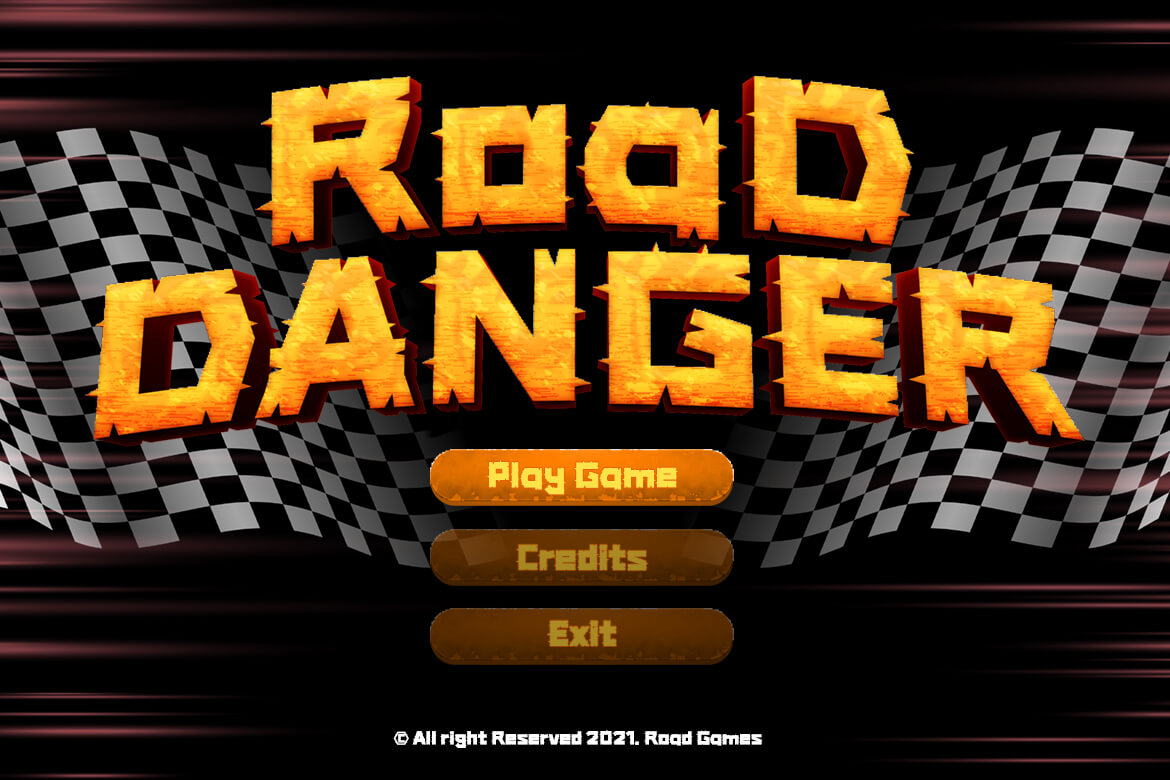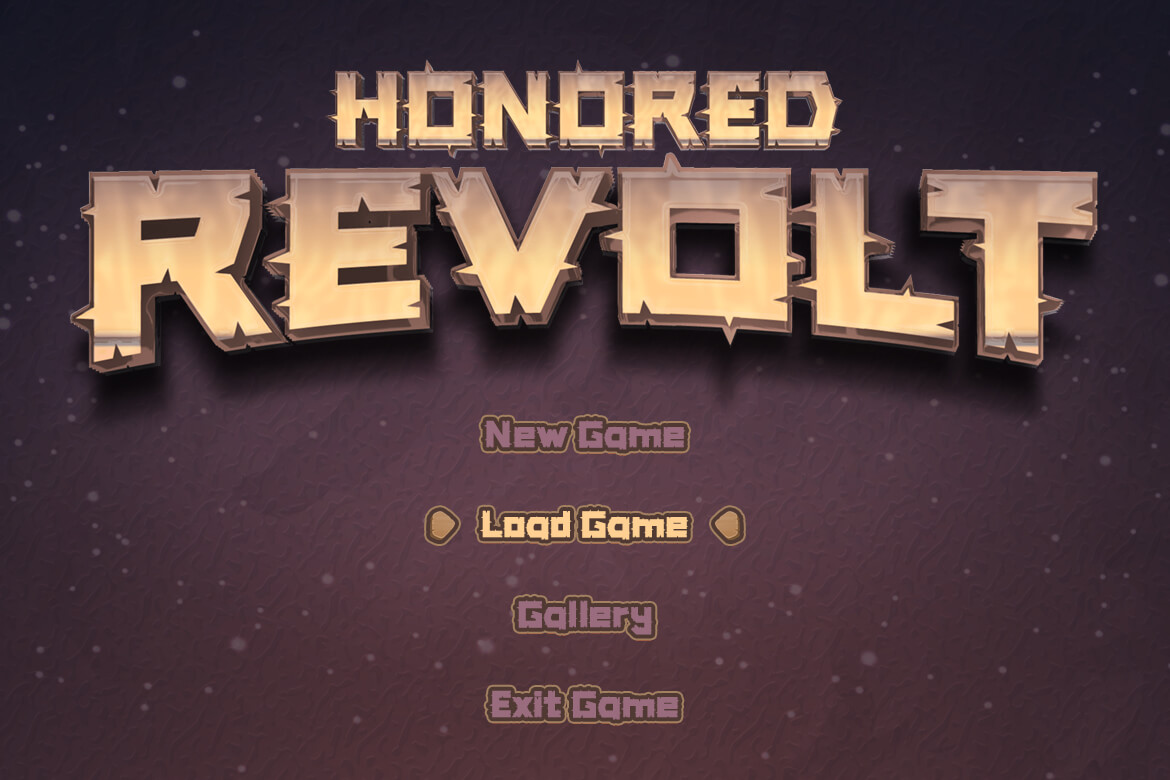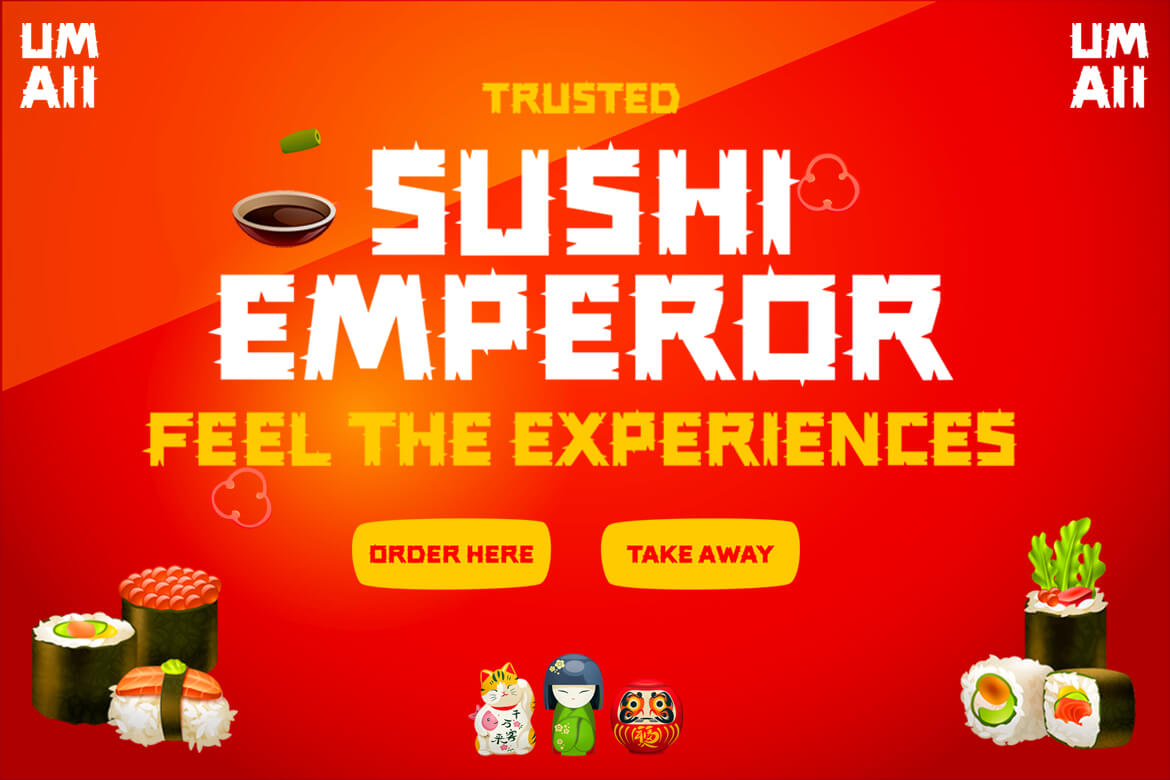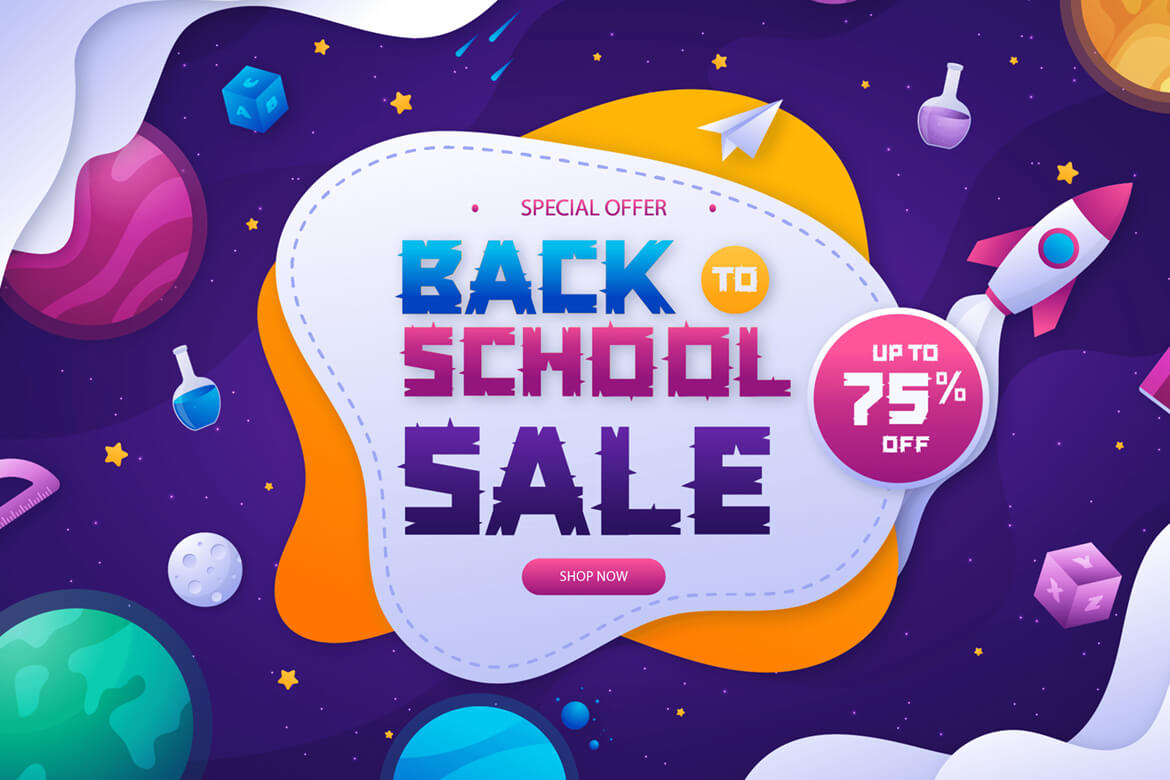
Cagtus Font
Cagtus Display Font
It’s a playful display typeface with a unique form and cactus-like characteristics. Of course, you aren’t limited to its application; you can utilize it to create a variety of unique creative projects. This font is perfect for games, sporting events, branding, banners, posters, movie titles, book titles, quotes, logotypes, and more.